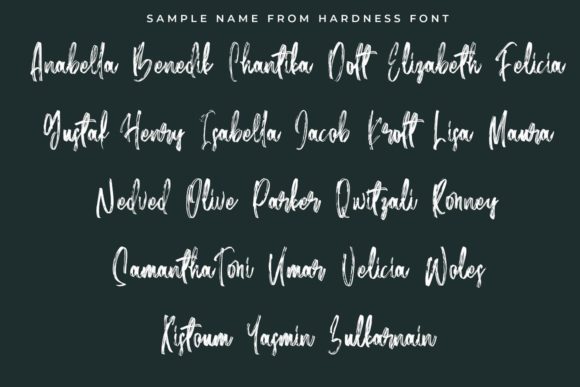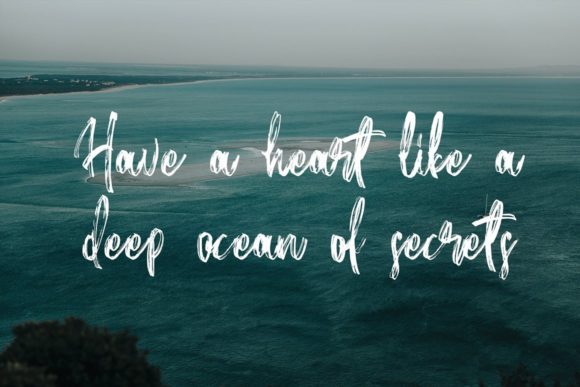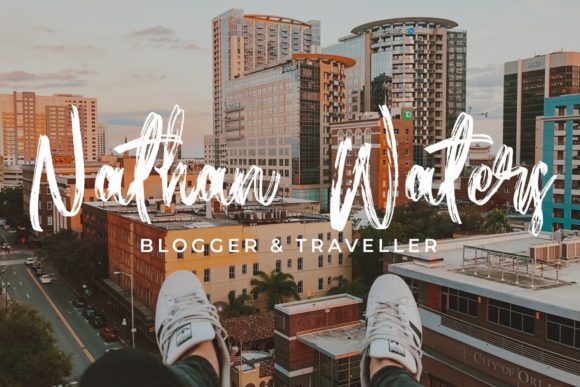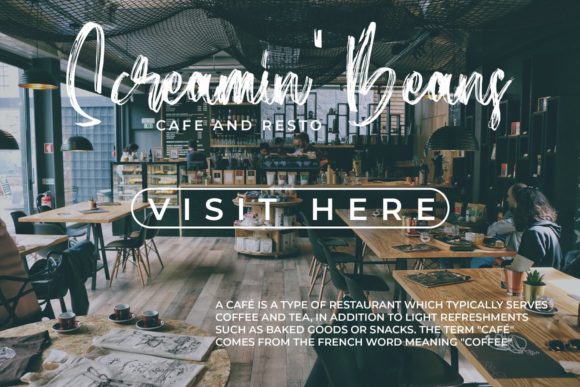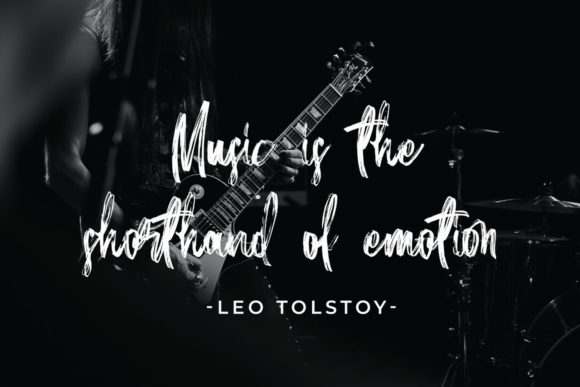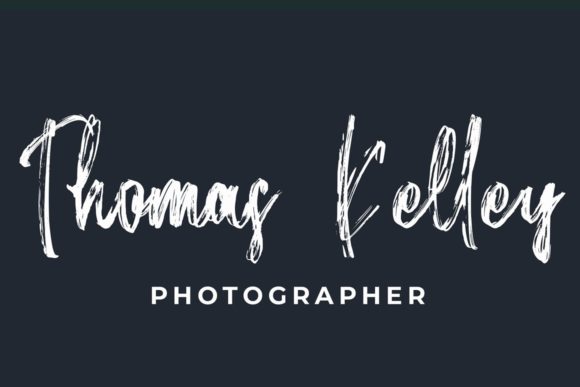
Introducing Hardness Font: Elevate Your Designs with a Spectacular Brush Style
Are you tired of using the same old fonts for your creative projects? Look no further than Hardness Font, a stunning brush style handwritten font that’s sure to make your designs stand out. With its unique and elegant style, Hardness Font is the perfect addition to any designer’s toolkit.
What is Hardness Font?
Hardness Font is a beautifully crafted brush style handwritten font that’s designed to add a touch of sophistication and elegance to your designs. With its smooth and flowing lines, this font is perfect for creating a wide range of projects, from wedding invitations and branding materials to social media graphics and more.
Key Features of Hardness Font
- Unique Brush Style: Hardness Font features a unique brush style that’s reminiscent of traditional hand-painted letters. Its distinctive look and feel make it perfect for creating eye-catching designs that stand out from the crowd.
- Elegant and Sophisticated: With its smooth and flowing lines, Hardness Font adds a touch of elegance and sophistication to any design. It’s perfect for creating high-end branding materials, wedding invitations, and more.
- Highly Versatile: Hardness Font is incredibly versatile and can be used for a wide range of projects, from digital designs to print materials. Its flexibility makes it a great addition to any designer’s toolkit.
How to Use Hardness Font in Your Designs
Using Hardness Font in your designs is easy. Here are a few tips to get you started:
- Pair it with Other Fonts: Hardness Font pairs well with a variety of other fonts, making it easy to create visually appealing combinations. Try pairing it with a clean sans-serif font for a striking contrast.
- Use it for Headlines: Hardness Font is perfect for creating eye-catching headlines that draw attention. Use it to add a touch of elegance and sophistication to your designs.
- Add it to Your Branding Materials: Hardness Font is a great addition to any branding materials, from business cards to brochures. Its unique style makes it easy to create a memorable and recognizable brand identity.
Benefits of Using Hardness Font
There are many benefits to using Hardness Font in your designs. Here are a few:
- Stand Out from the Crowd: With its unique and elegant style, Hardness Font makes it easy to create designs that stand out from the crowd. Whether you’re designing for a client or working on a personal project, this font is sure to make your designs shine.
- Increase Engagement: Hardness Font is designed to be visually appealing and engaging. By using this font in your designs, you can increase engagement and capture the attention of your audience.
Hardness Font is a spectacular brush style handwritten font that’s sure to elevate your designs. With its unique and elegant style, this font is perfect for creating a wide range of projects, from branding materials to social media graphics. Whether you’re a designer, crafter, or DIY enthusiast, Hardness Font is a great addition to your toolkit. So why wait? Add Hardness Font to your designs today and notice how it makes them stand out!